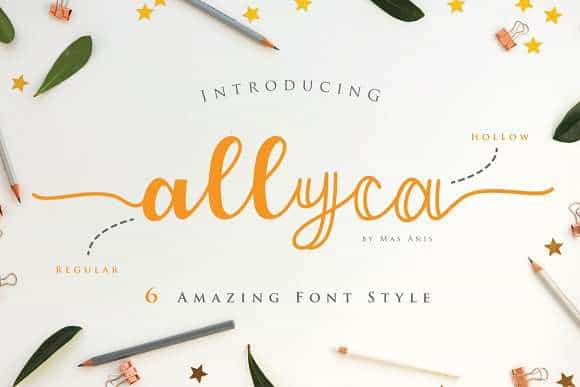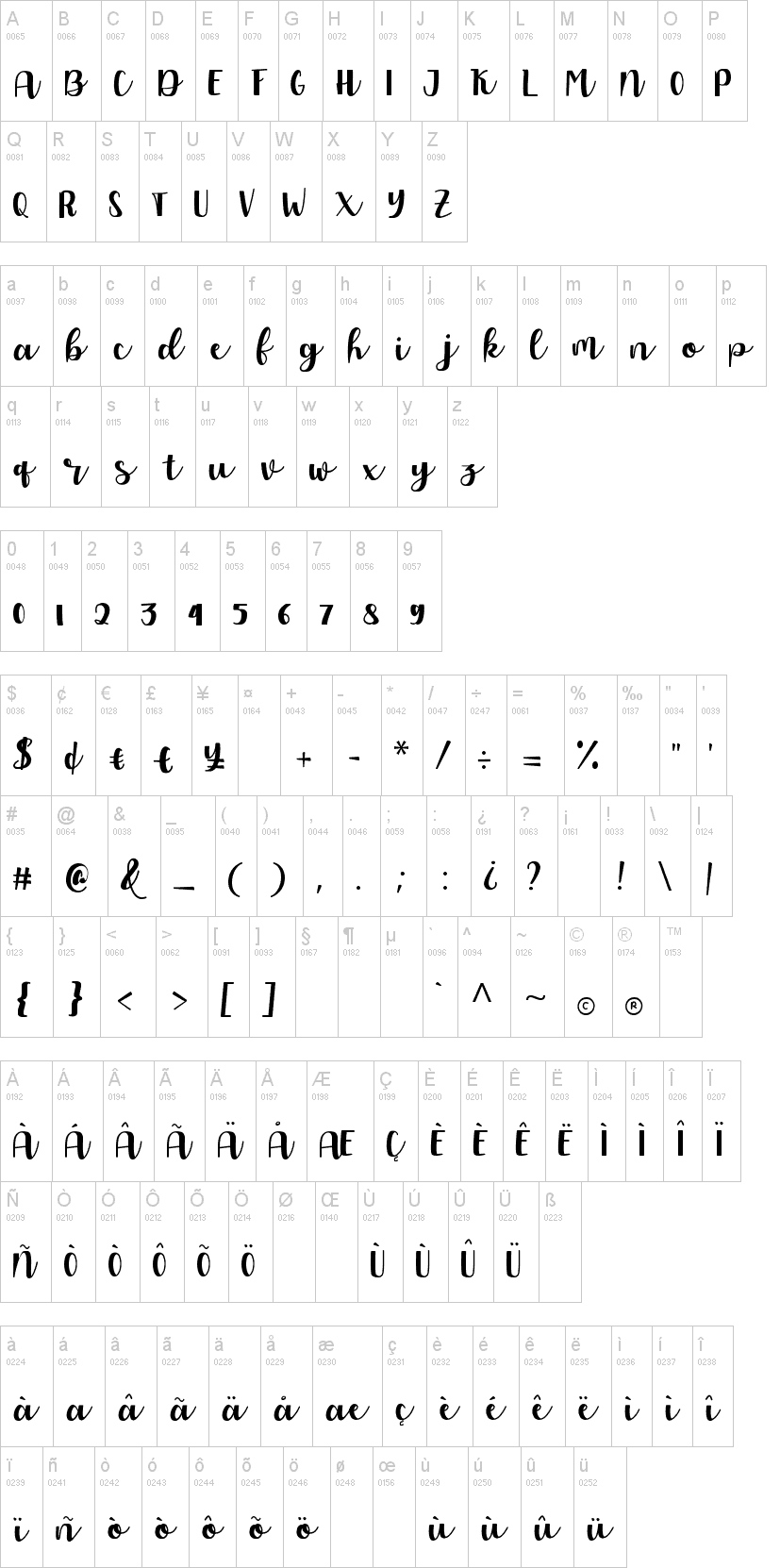
Allyca is a top-notch Calligraphy font created by Mas Anis Studio and is free for download and personal use. The free version gives all the upper and lower case characters and a few special characters as well.